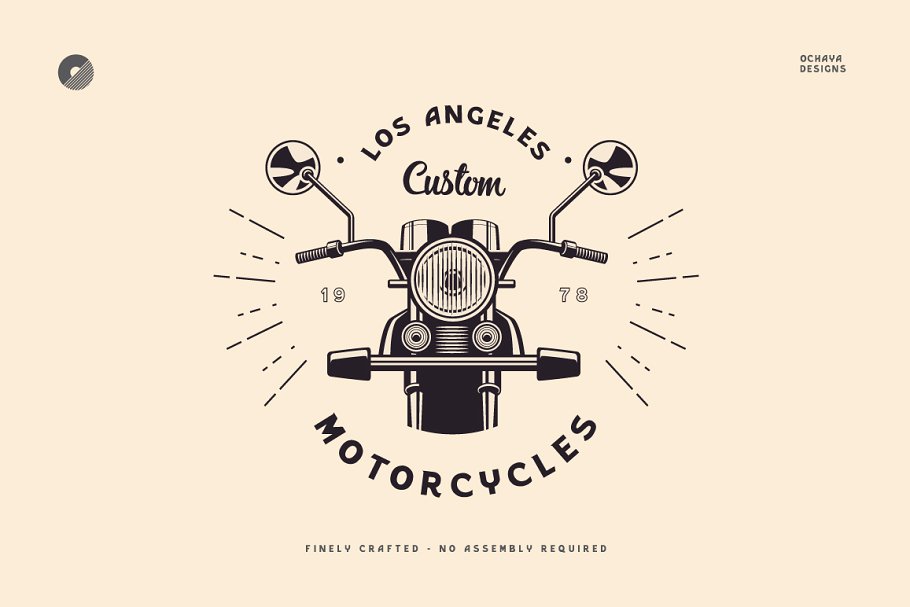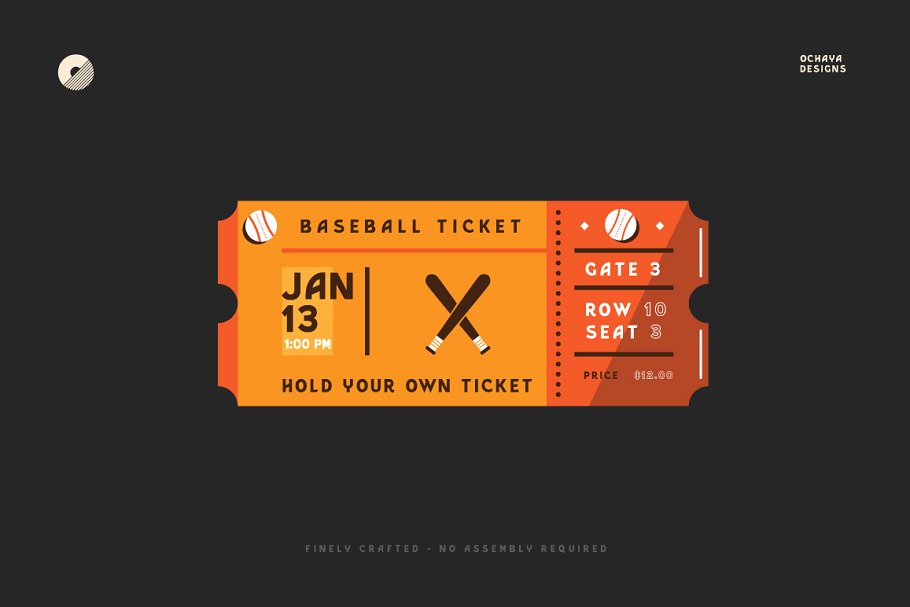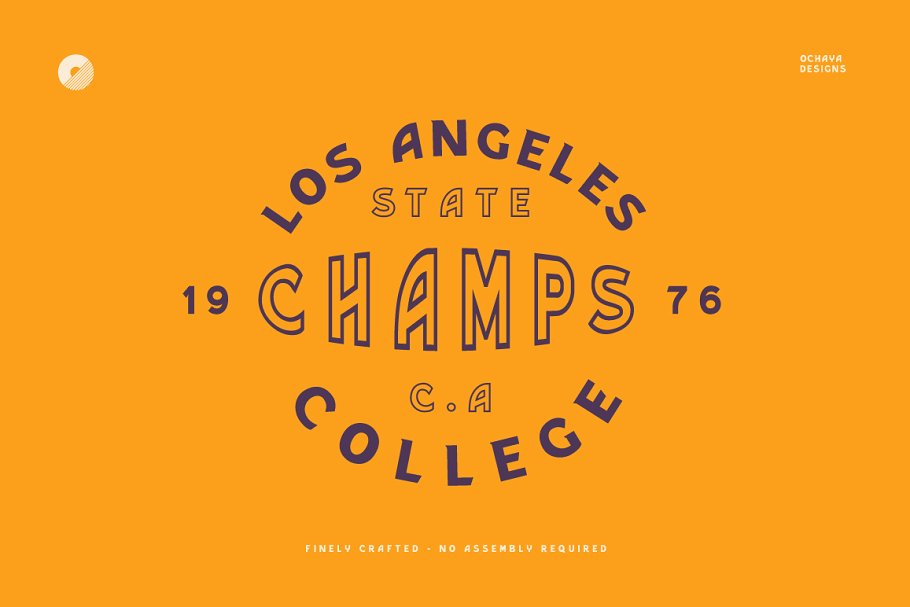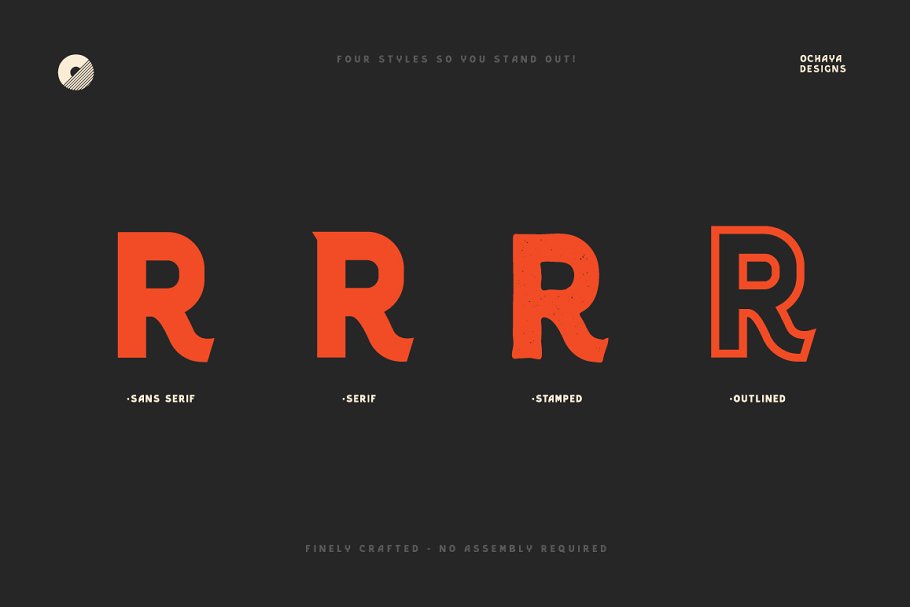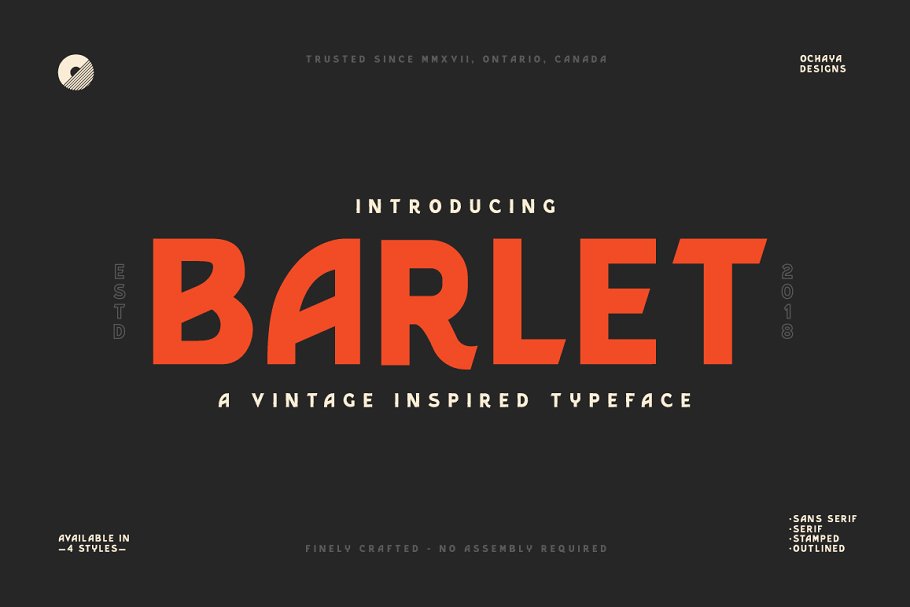
Barlet Typeface
I am very happy and happy to introduce a great fonts family to you, this is a vintage inspired typeface by ochaya designs. Introducing Barlet | Vintage Inspired. A vintage inspired serif typeface. Barlet comes as a complete with four vintage styles and they are best used for branding, print design, title headings & so much more. Check it out!